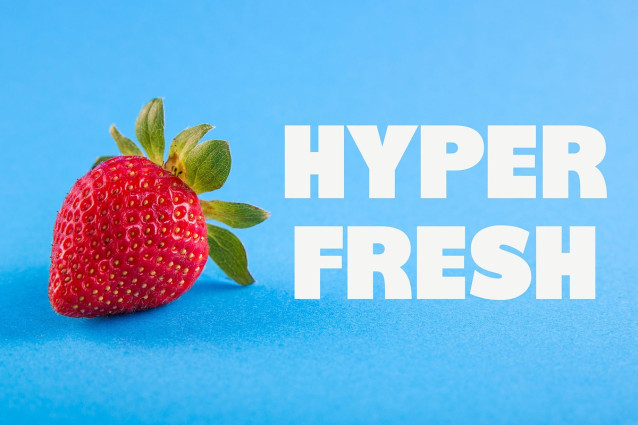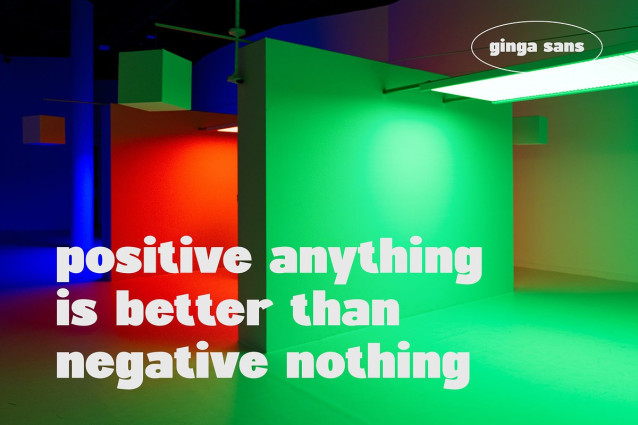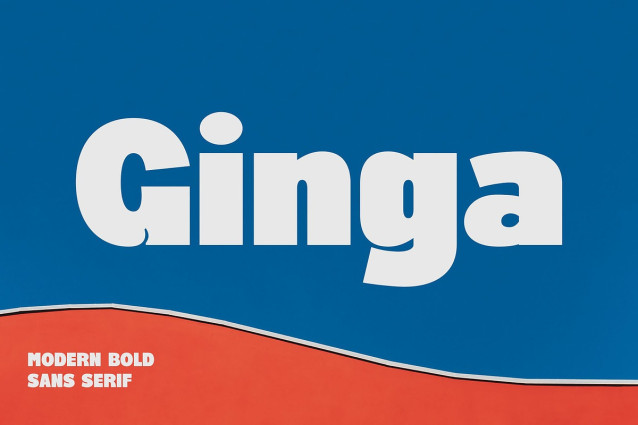
Ginga Font
Ginga Font, modern sans serif font with elegant style this is perfect for branding, logos, invitation, magazines, product packaging and more.